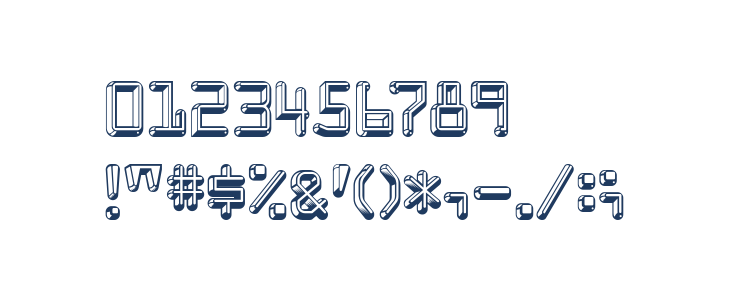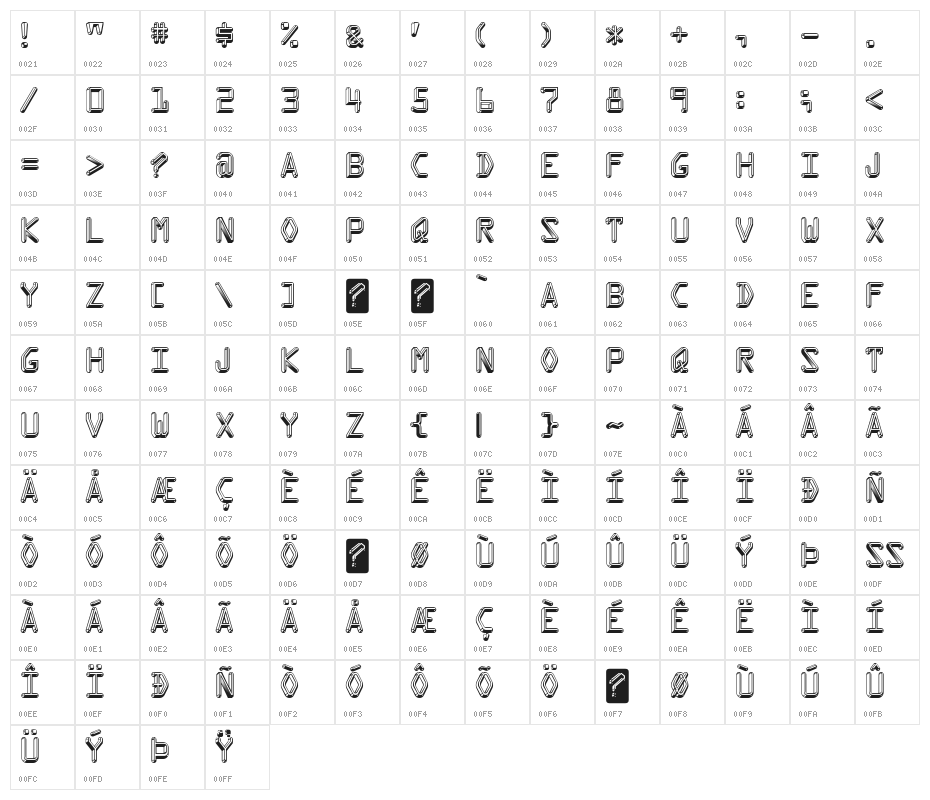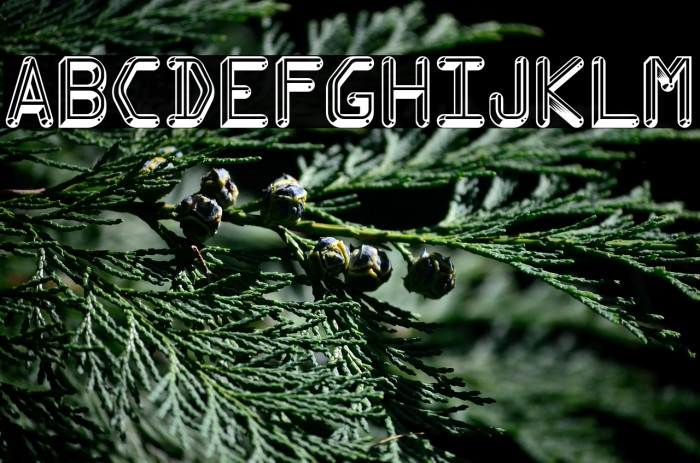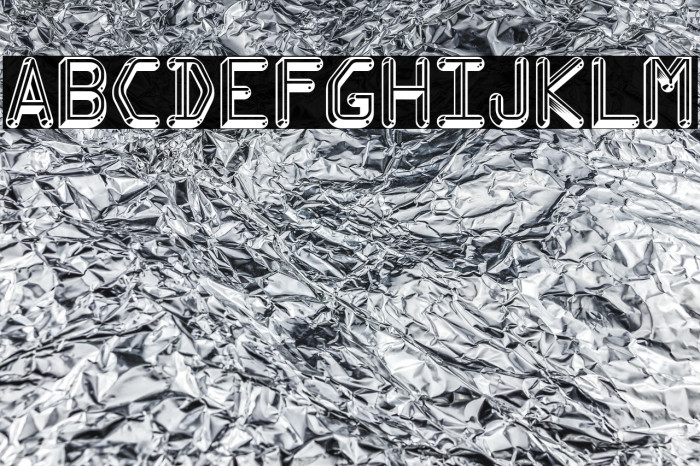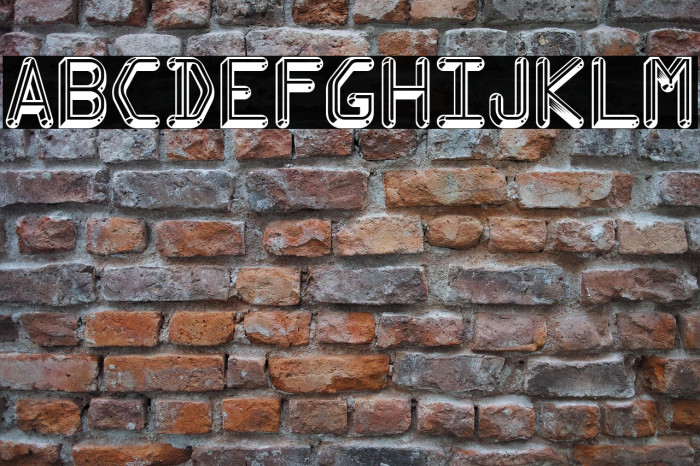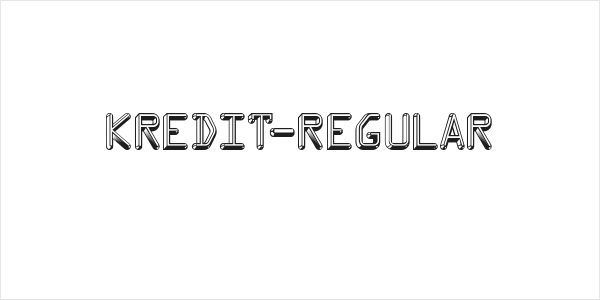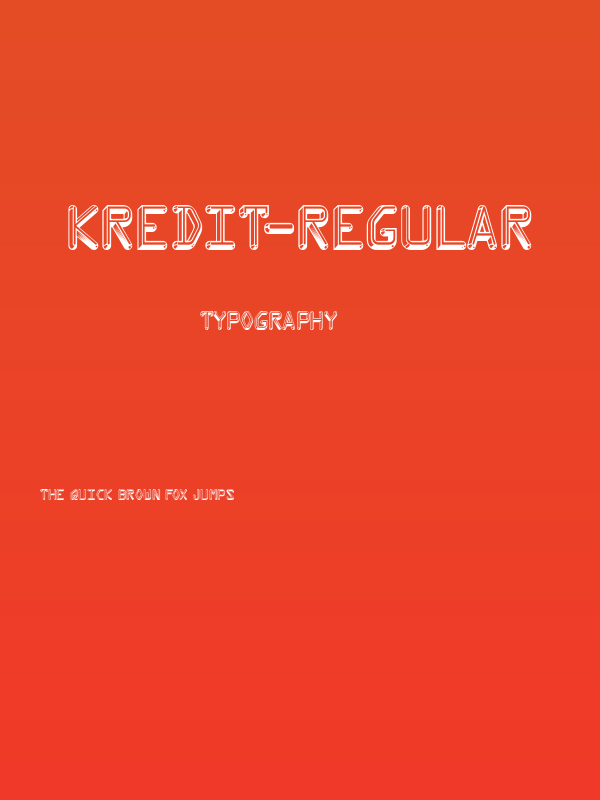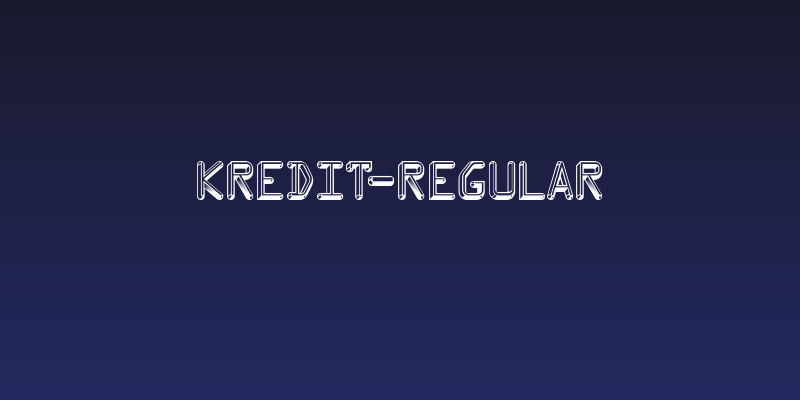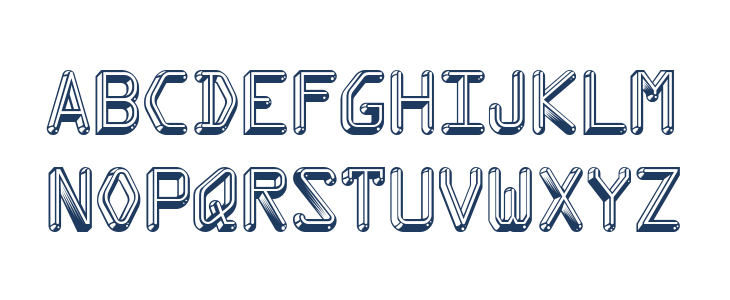
Kredit-Regular Font
Kredit-Regular Description
This font features a bold, three-dimensional design with a modern and futuristic aesthetic. Each character is outlined with a thick black border, creating a shadow effect that gives depth and dimension. The letters are geometric and angular, with sharp edges and clean lines, contributing to a highly stylized appearance. The uppercase and lowercase letters maintain a consistent style, while the numerals and special characters complement the overall design. This font is eye-catching and ideal for projects that require a strong visual impact.
| Proposed Projects | Ideal for branding, posters, video game graphics, and futuristic-themed designs. |